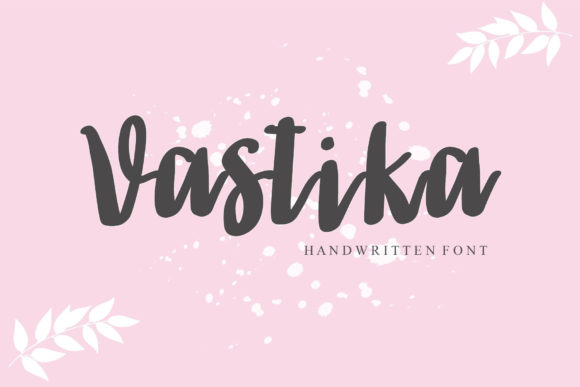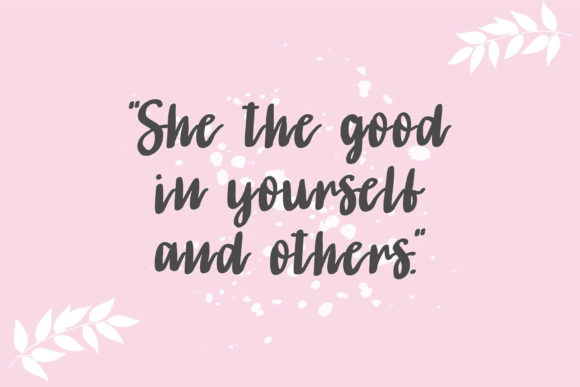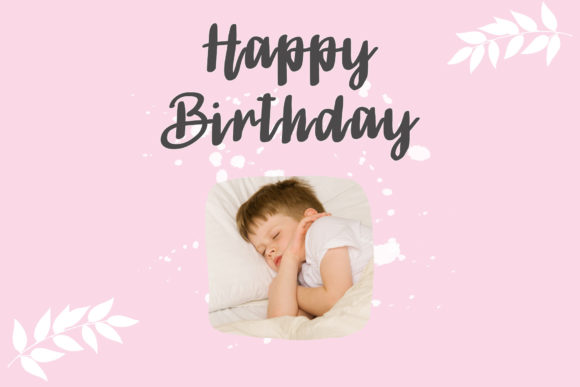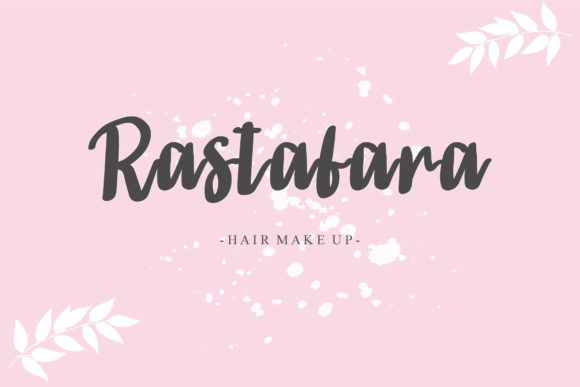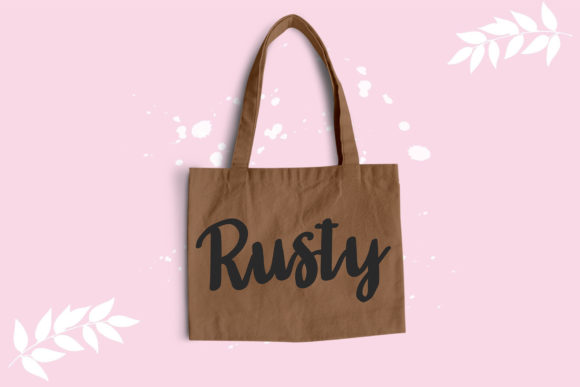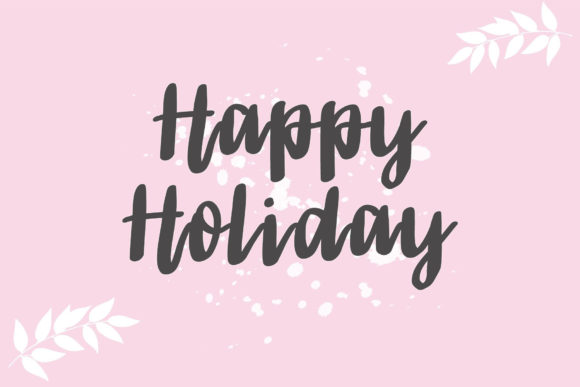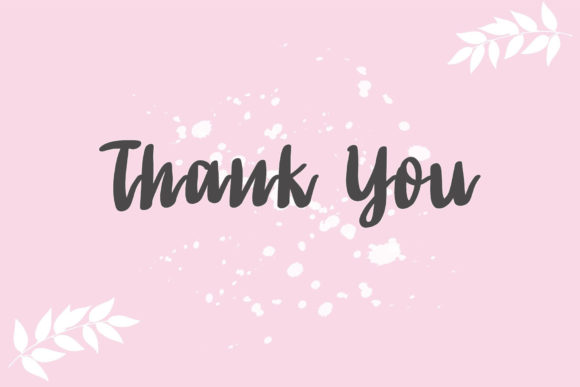
Vastika Font
About Vastika Font
Vastika is a dazzling script font. This font is neatly crafted and highly detailed. Add it to any of your designs, and enjoy the results!